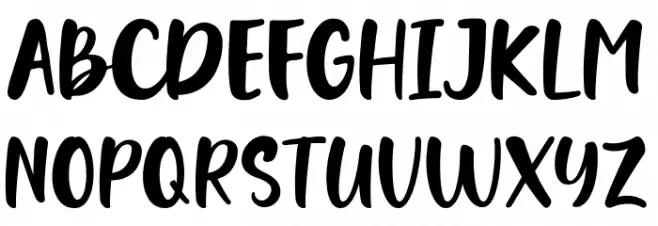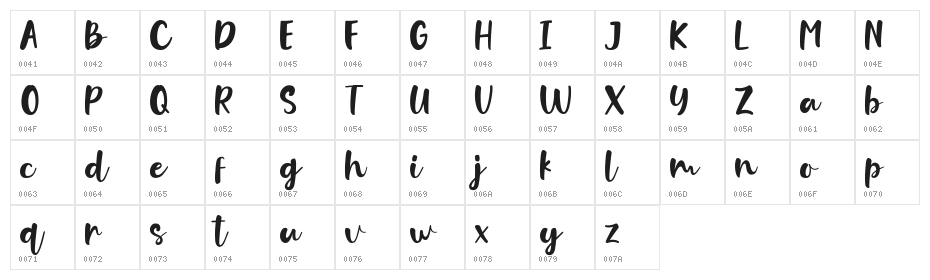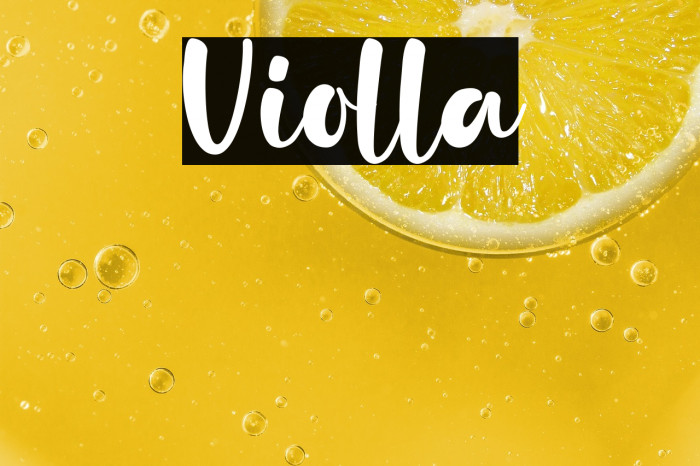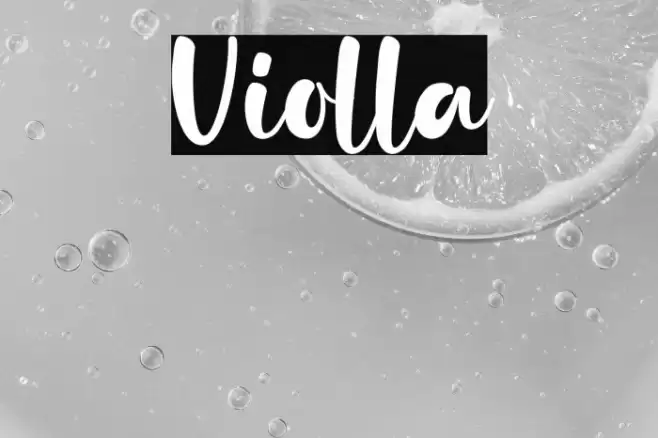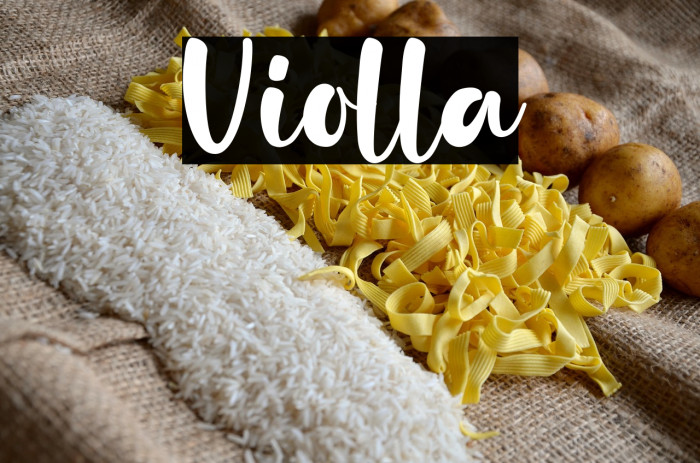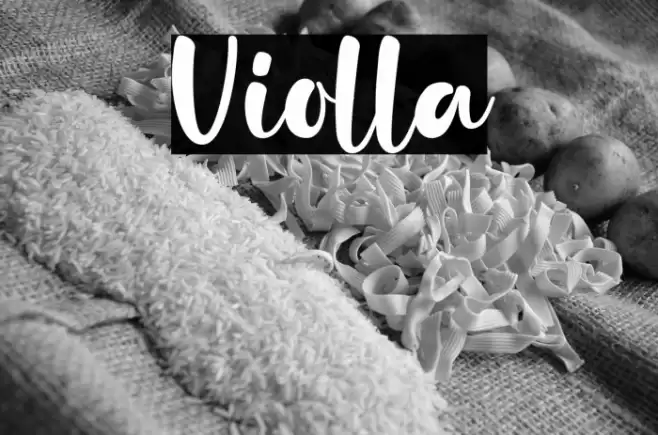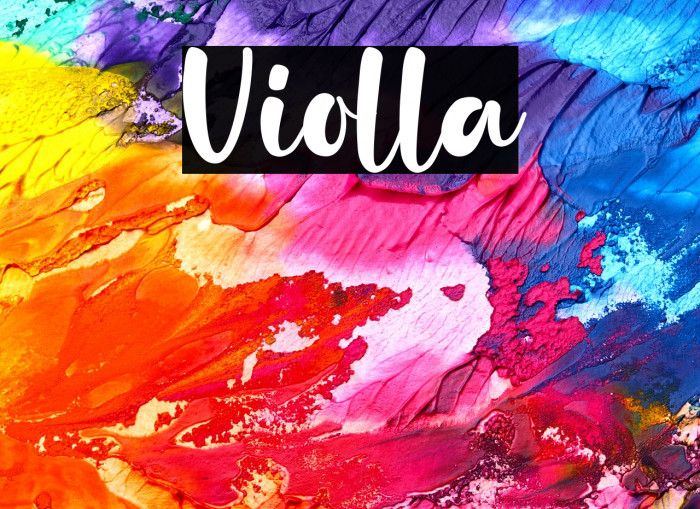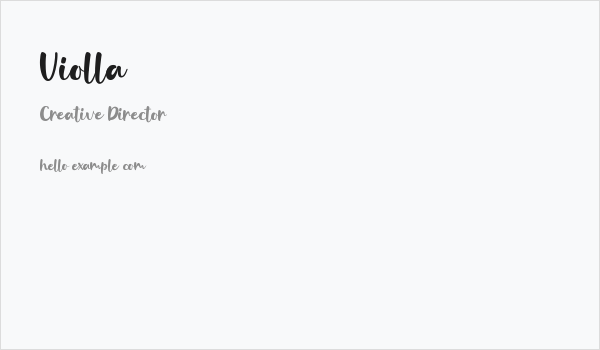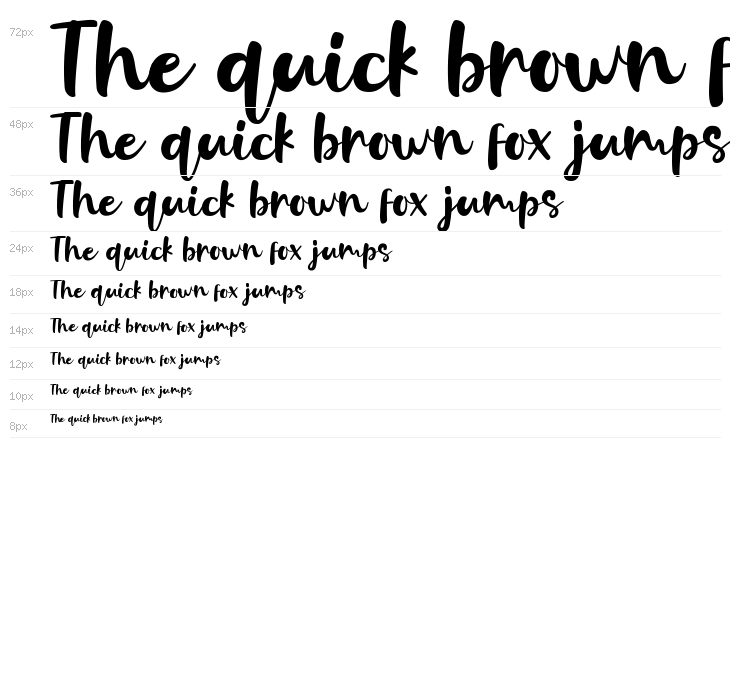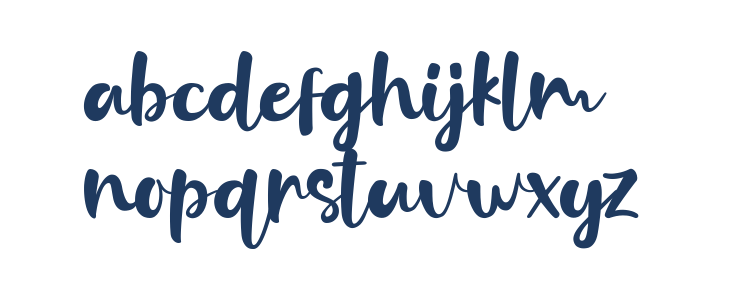
Violla Font
Violla Description
This font features a bold and expressive style with a handwritten appearance. The letters are characterized by smooth, flowing curves and a playful, casual demeanor. The uppercase letters are slightly more structured, while the lowercase letters exhibit a more fluid and dynamic form. The strokes are thick and consistent, providing a strong visual impact. The font maintains a consistent weight throughout, with a slight slant that adds to its informal and approachable feel. The character spacing is normal, allowing for easy readability while maintaining its unique style. This font is ideal for projects that require a personal touch or a creative flair.
| Proposed Projects | Great for greeting cards, invitations, posters, and branding materials that require a personal and creative touch. |